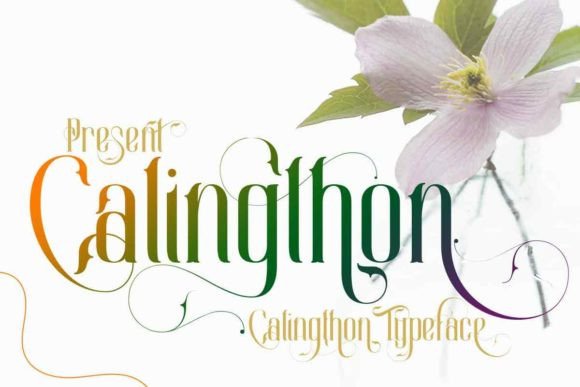
As soon as I saw it, I knew I had found what I was looking for. Calingthon is a very charming, upright and dashing calligraphy font, making this font elegant and modern in style, suitable for social media, displaying video thumbnails, book covers, banners, and many more. In this article, I’ll share my experience with Calingthon, its features, and how to make the most of it in your designs.
An Honest Review of Calingthon Font
What I Love About Calingthon ✨
- ✅ Elegant and modern style that’s perfect for luxury brands and high-end designs
- ✅ Highly versatile and can be used for a wide range of projects, from social media graphics to book covers
- ✅ Beautifully crafted with attention to detail, making it a joy to work with
- ✅ Easy to read and understand, even at smaller font sizes
While Calingthon is an amazing font, there are a few things to keep in mind:
- 🤔 Some users may find the font a bit too ornate for certain projects, such as body text or lengthy articles
- ⚠️ Not all characters have perfect kerning, which can be a minor issue in certain situations
The Story Behind Calingthon Font
Calingthon Font was designed with the goal of creating a beautiful, elegant script font that would be perfect for luxury brands and high-end designs. The designer, who wishes to remain anonymous, was inspired by classic calligraphy and wanted to create a font that would be both modern and timeless.
Q: What is Calingthon Font?
A: Calingthon Font is a charming, upright and dashing calligraphy font that’s perfect for luxury brands, high-end designs, and creative projects.